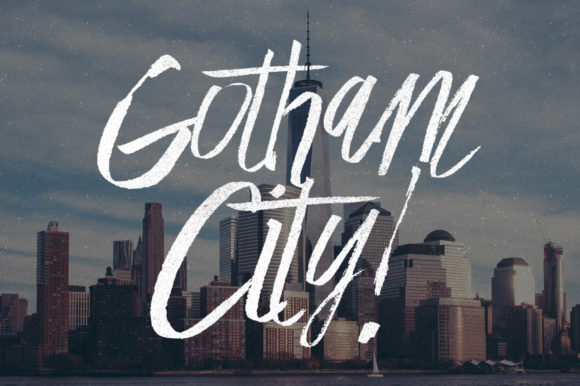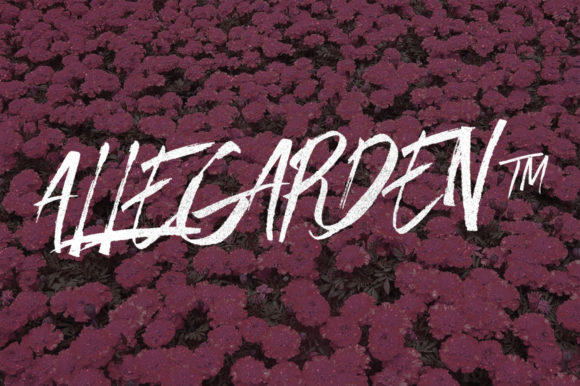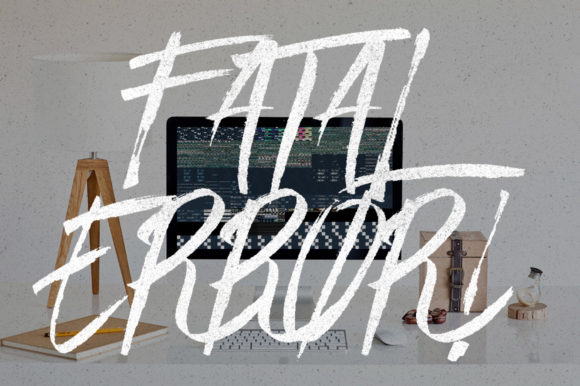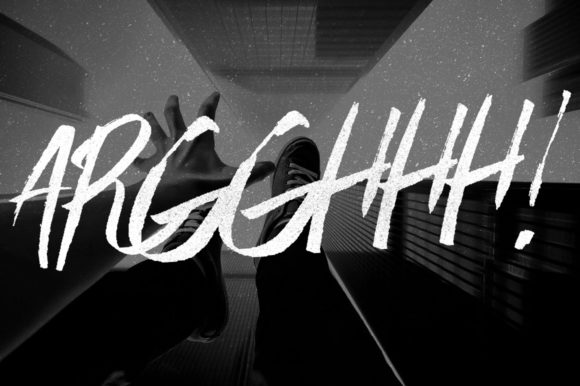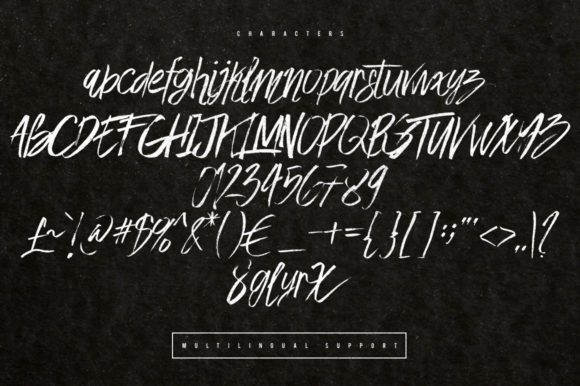
Introducing Easy Font: The Perfect Handwritten Font for DIY Projects
Are you a designer or crafter looking for a unique and authentic font to bring your DIY projects to life? Look no further than Easy Font, a stunning handwritten font that pairs perfectly with a brush pen and pencil. This gorgeous font is sure to add a touch of personality and charm to any project, making it stand out from the crowd.
Handwritten fonts have a way of adding a personal touch to any project. They evoke a sense of warmth and personality that digital fonts often can’t replicate. Easy Font is no exception, with its unique and authentic handwritten style that’s sure to capture the hearts of designers and crafters alike.
The Magic of Easy Font
So, what makes Easy Font so special? The answer lies in its stunning pairing of a brush pen and pencil. This unique combination creates a font that’s both elegant and playful, with a sense of movement and energy that’s hard to resist. Whether you’re working on a DIY project, a branding campaign, or simply want to add a personal touch to your digital designs, Easy Font is the perfect choice.
Easy Results with Easy Font
One of the best things about Easy Font is how easy it is to use. With its clean and simple design, you can achieve professional-looking results in no time. Whether you’re a seasoned designer or a crafting newbie, Easy Font is the perfect tool to help you bring your creative vision to life.
Perfect for DIY Projects
Easy Font is specifically designed with DIY projects in mind. Whether you’re working on a handmade card, a scrapbook, or a craft project, this font is sure to add a touch of personality and charm. With Easy Font, you can create unique and eye-catching designs that are sure to stand out from the crowd.
Why Choose Easy Font?
So, why choose Easy Font over other fonts on the market? Here are just a few reasons why Easy Font stands out:
- Unique and Authentic Style: Easy Font has a unique and authentic handwritten style that’s sure to capture the hearts of designers and crafters alike.
- Easy to Use: With its clean and simple design, Easy Font is easy to use, even for those with limited design experience.
- Perfect for DIY Projects: Easy Font is specifically designed with DIY projects in mind, making it the perfect choice for crafters and makers.
- Professional-Looking Results: With Easy Font, you can achieve professional-looking results in no time, making it perfect for designers and crafters who want to create high-quality designs.
Tips and Tricks for Using Easy Font